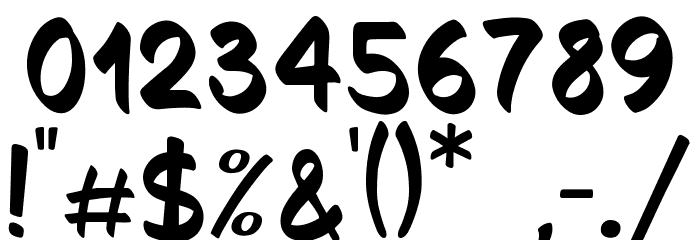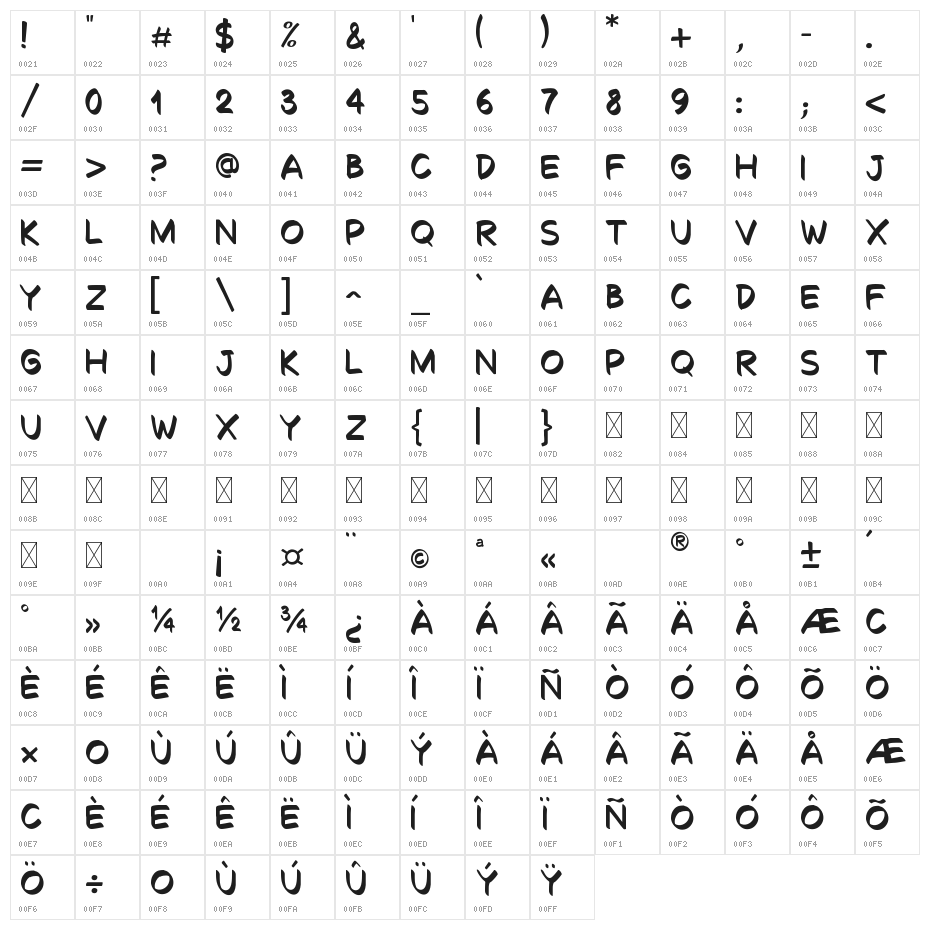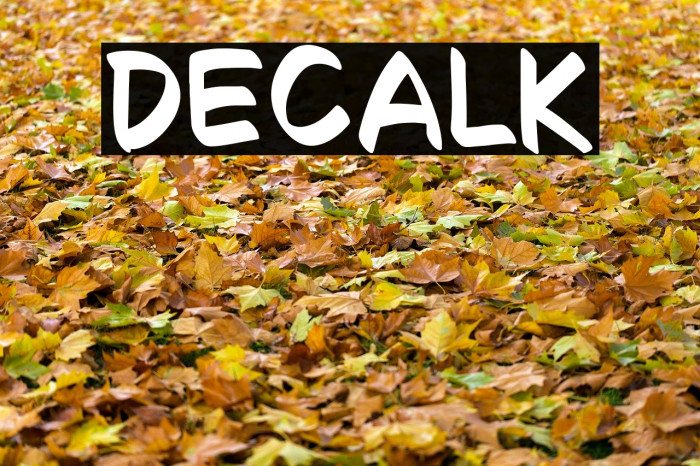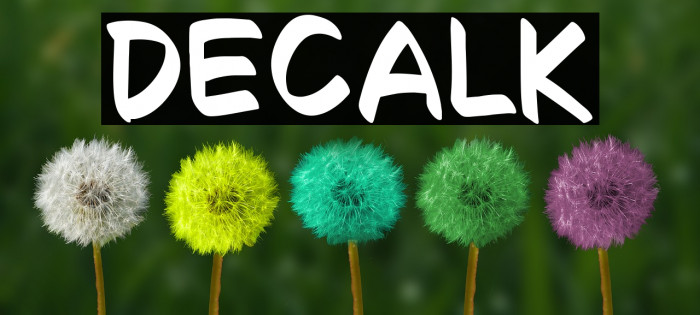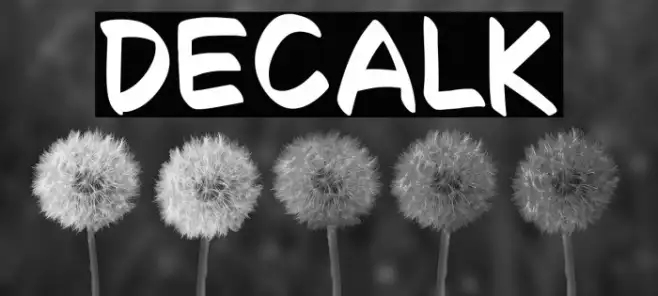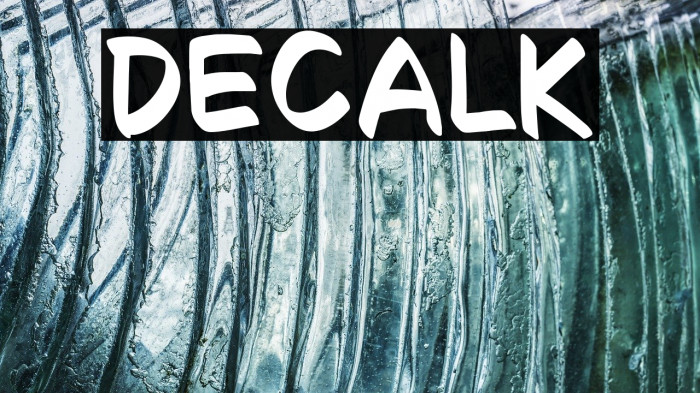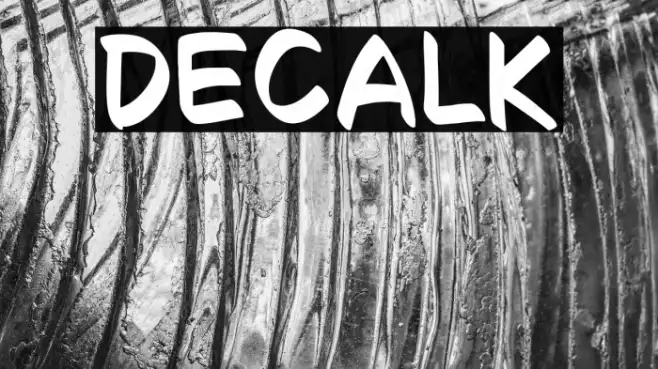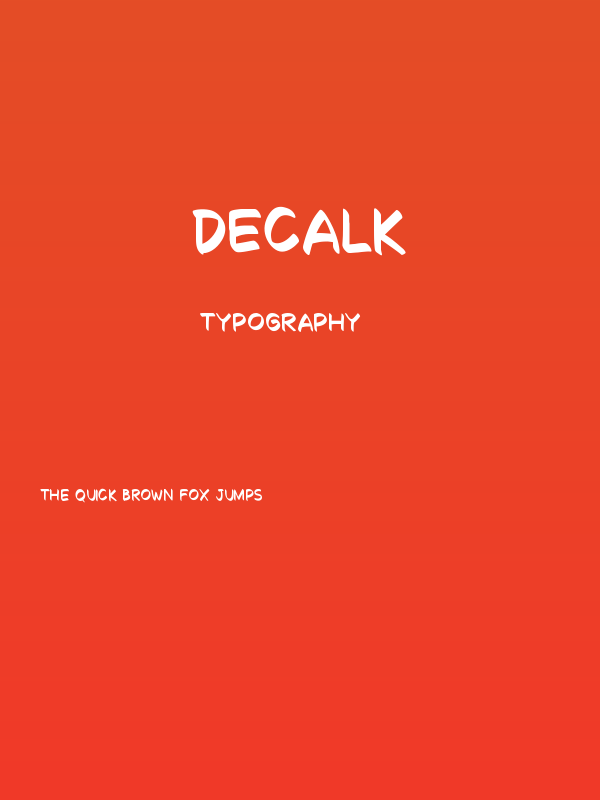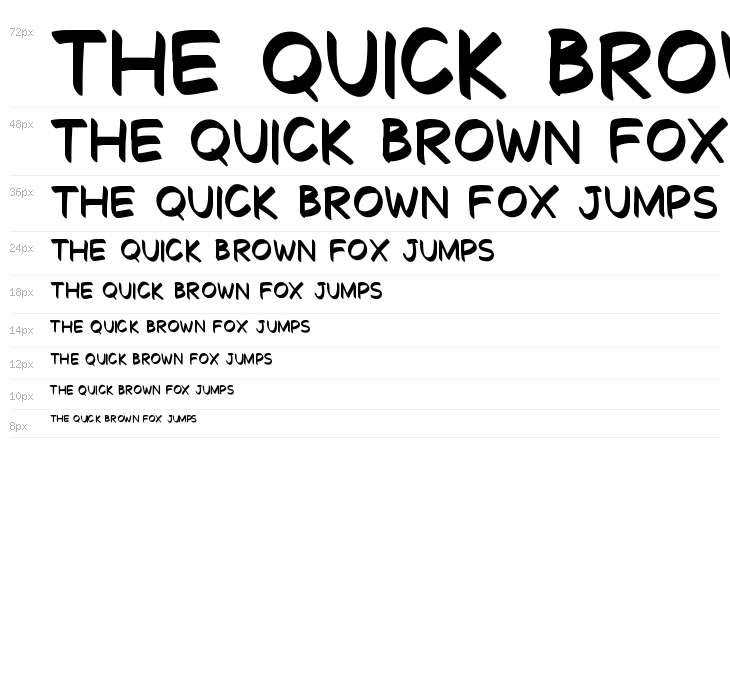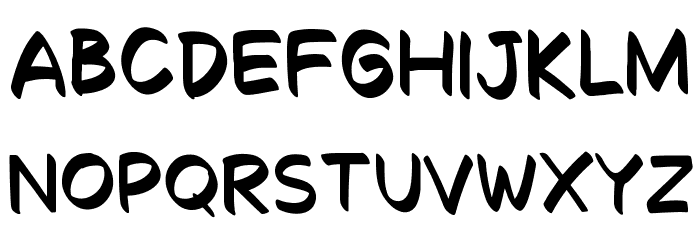
Decalk Font
Decalk Description
This font features a playful and bold handwritten style, characterized by its thick, rounded strokes and slightly irregular shapes. The letters have a casual, informal appearance, making them suitable for creative and fun projects. The numbers and special characters maintain the same lively and dynamic feel, ensuring consistency across all glyphs. The overall design is approachable and friendly, with a touch of whimsy that can add personality to any text. The font's boldness ensures readability, while its unique style makes it stand out in a variety of contexts.
| Proposed Projects | Ideal for children's books, playful branding, event posters, and creative social media graphics. |